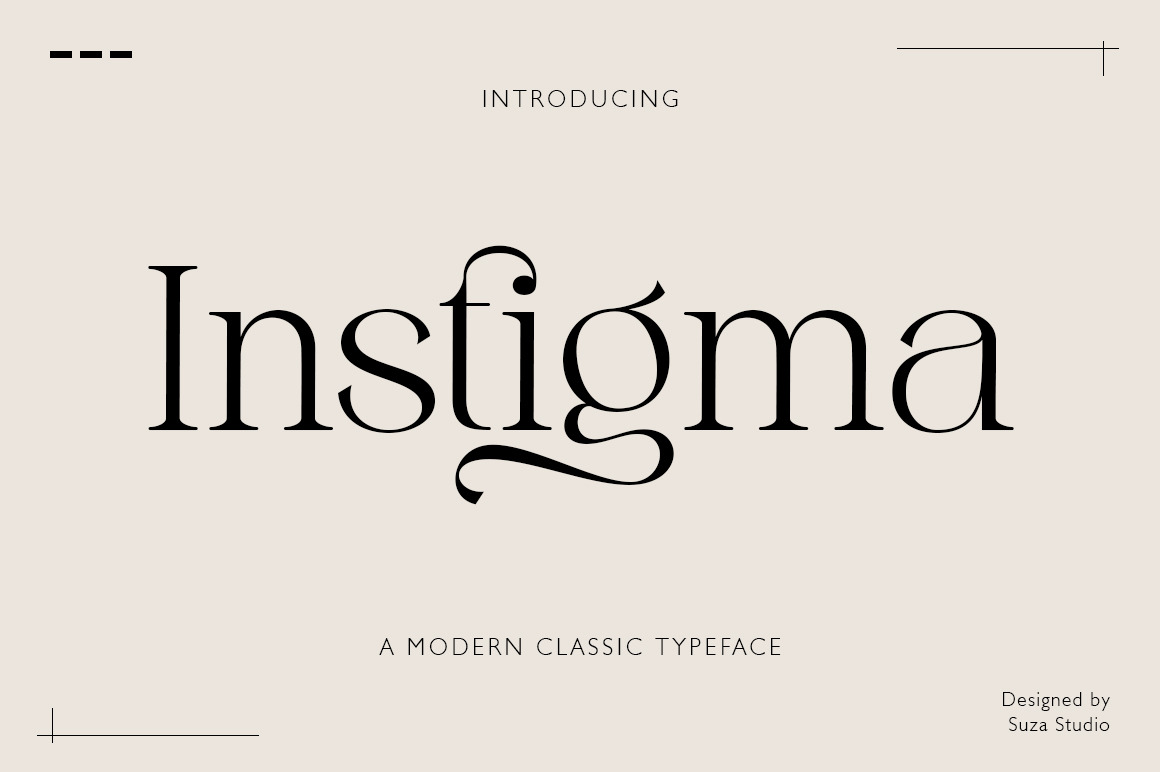
Instigma - A Modern Classic Typeface
Instigma is a modern classic typeface , elegant, modern, unique and classy. This font was created specifically for luxury themed projects, ready to be used in Magazines, Social Media, Branding, Logos and Many More that need a touch of Luxury.
Instigma is also included full set of:
- uppercase and lowercase
- multilingual characters
- numerals
- punctuation
- alternates